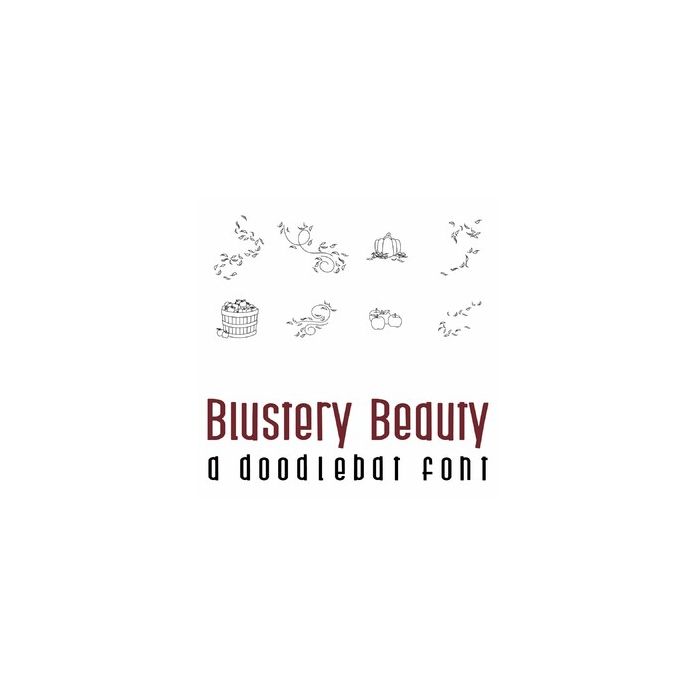
This fun doodlebat font features 26 fun doodle style fall blustery images. Perfect for cards, gifts, decor, crafts, scrap book pages, planner stickers and more!